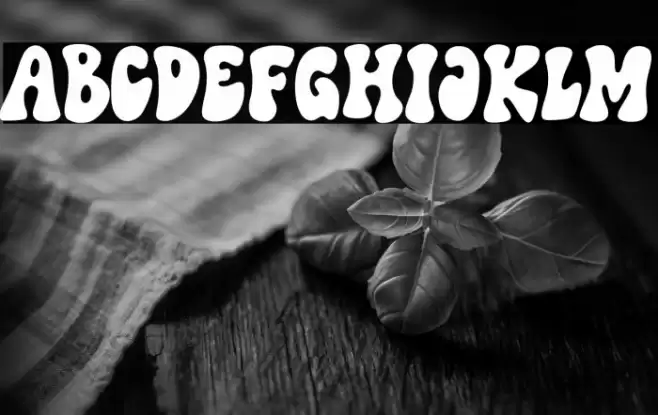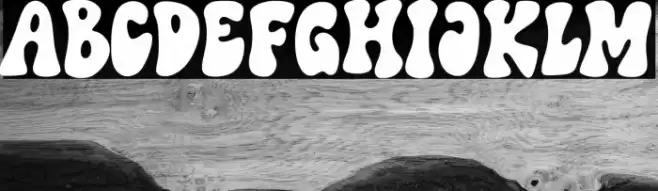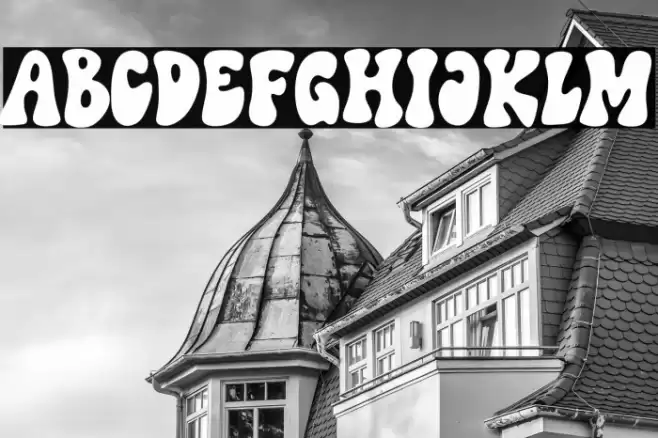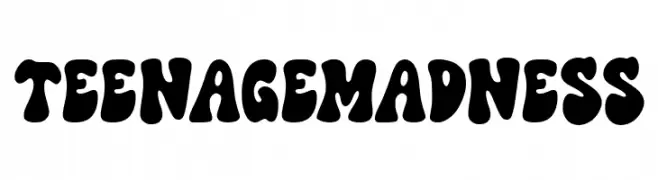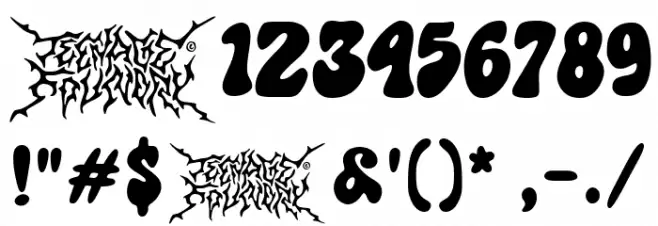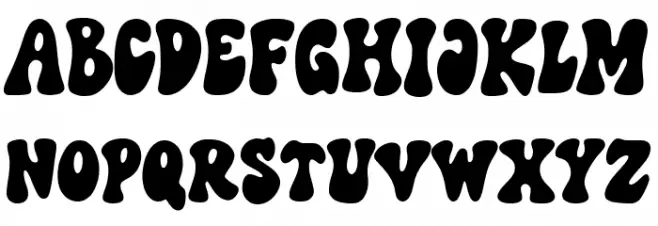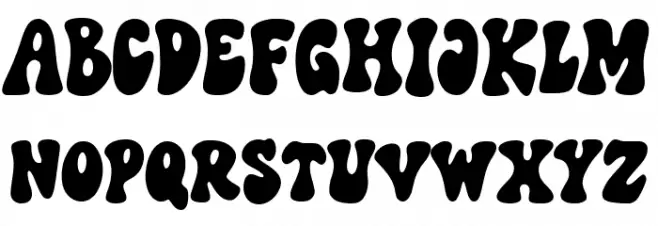
Teenage Madness Font
Teenage Madness Description
A bold, playful display font with thick, rounded, and irregular letterforms that create a bubbly, psychedelic effect. The characters are highly stylized and have a hand-drawn, organic appearance, making them visually striking and attention-grabbing.
A bold, bubbly, and psychedelic display font with irregular, rounded shapes from Uncategorized fonts.
- Font: Teenage Madness
- Proposed Projects: Posters, album covers, event flyers, youth-oriented branding, merchandise, party invitations, and creative social media graphics.
- Character Spacing: Tight
- Overall Style: Psychedelic, Playful, Decorative
- Use Case: Headlines, Posters, Logos, Event Flyers